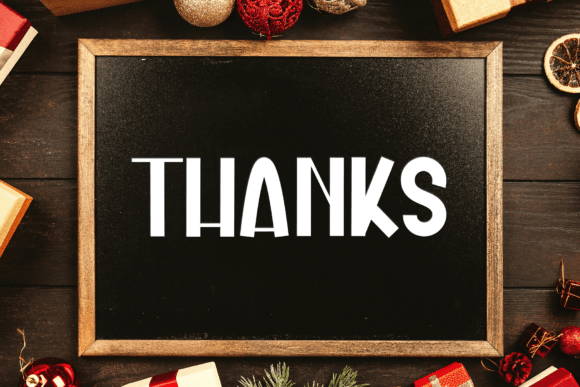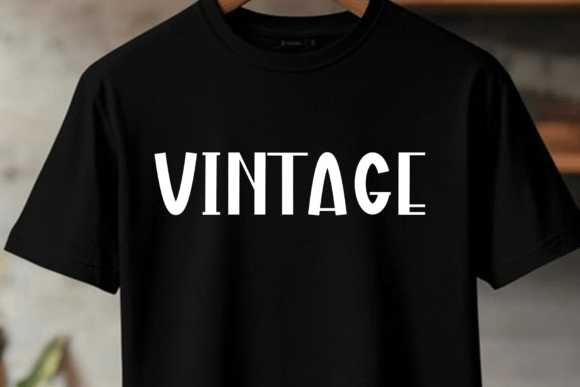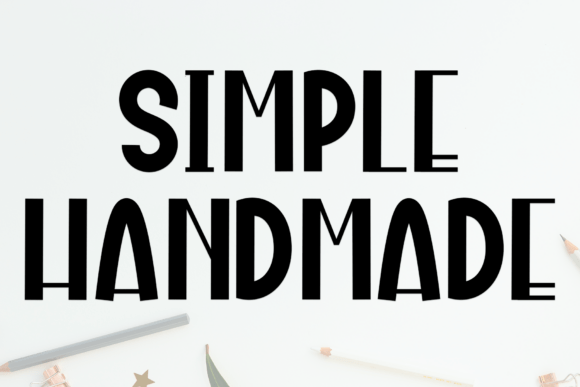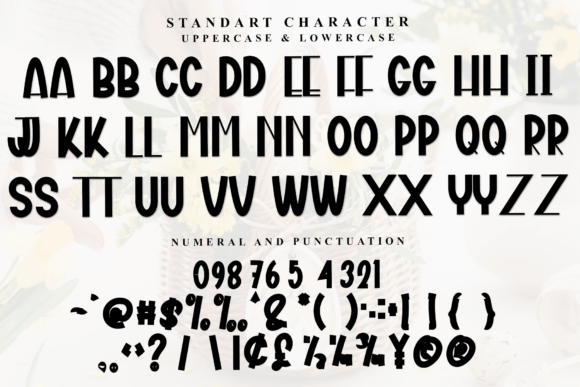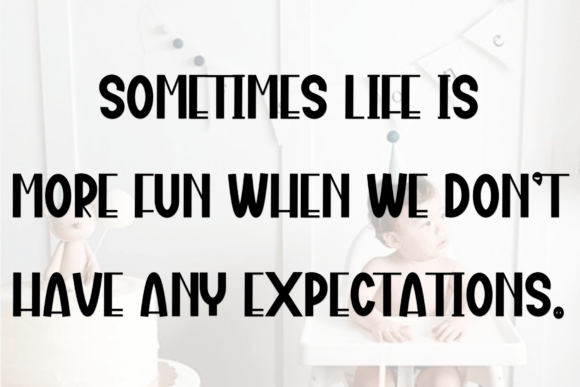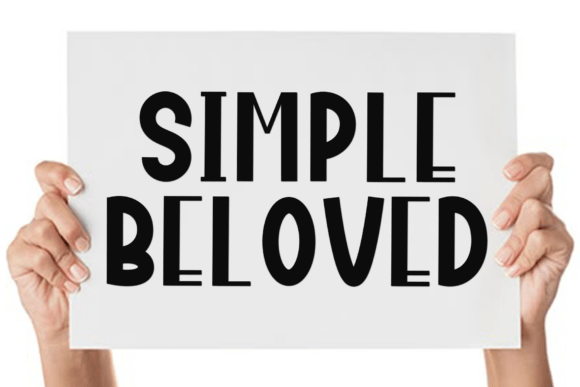
Introduction to Millennial Works Font
Have you ever found yourself lost in the holiday season, scrolling through Pinterest boards filled with festive decorations and creative project ideas, only to be struck by the perfect font to match your vision? For many designers, this is the moment when a project comes together. And for those looking to add a touch of magic to their designs, the Millennial Works Font is the perfect discovery.
- High-quality design resource ideal for creative projects, including logos, branding materials, and digital designs.
- Unique, modern font style that appeals to a millennial audience, perfect for targeting this demographic in design projects.
Honest Review: Millennial Works Font
As a designer, I’m always on the lookout for high-quality design resources to elevate my creative projects. Recently, I stumbled upon the Millennial Works Font, and I’m excited to share my honest review with you.
What works well: ✨ The Millennial Works Font is incredibly versatile and can be used for a wide range of creative projects, from logos to brochures. The font is well-designed, with a modern and sleek aesthetic that’s perfect for businesses and individuals looking to make a statement. I also appreciate the transparent background, which makes it easy to layer and customize the font to fit my design needs.
- Modern and sleek aesthetic
Limitations: ⚠️ While the Millennial Works Font is a great resource, I do wish there were more variations and styles available. Currently, the font is only available in a few weights and styles, which can limit its versatility. Additionally, the font may not be suitable for projects that require a more traditional or formal look.
Overall impression: The Millennial Works Font is a solid design resource that’s perfect for creative projects. While it has some limitations, its high-quality design and versatility make it a great addition to any designer’s toolkit.
Millennial Works Font
To get the most out of the Millennial Works Font, experiment with different font sizes, colors, and combinations to achieve a unique design look. Additionally, use it in conjunction with other design elements to create a visually appealing design.
The Millennial Works Font is suitable for various design projects, including social media graphics, flyers, logos, infographics, and presentations. Its high-quality design and transparent background make it an ideal choice for any creative project.